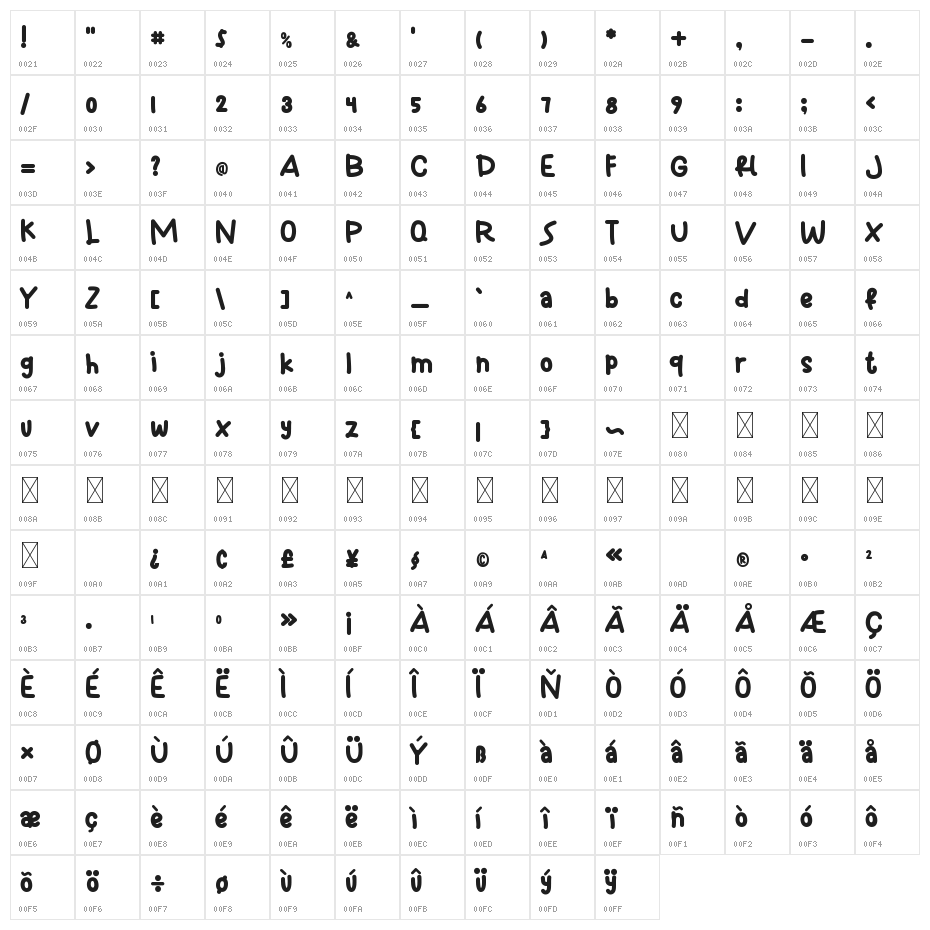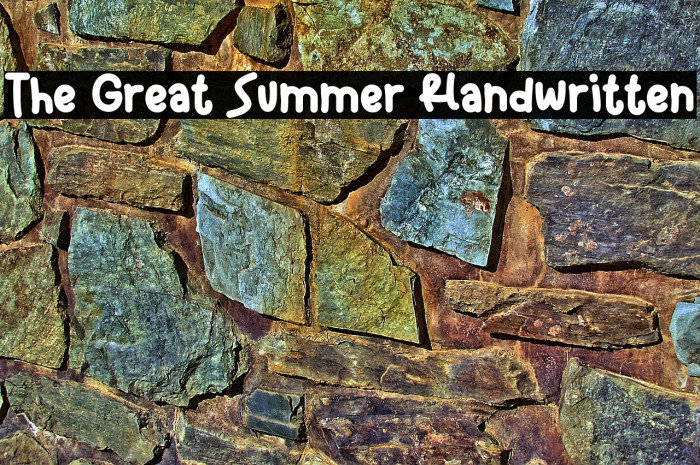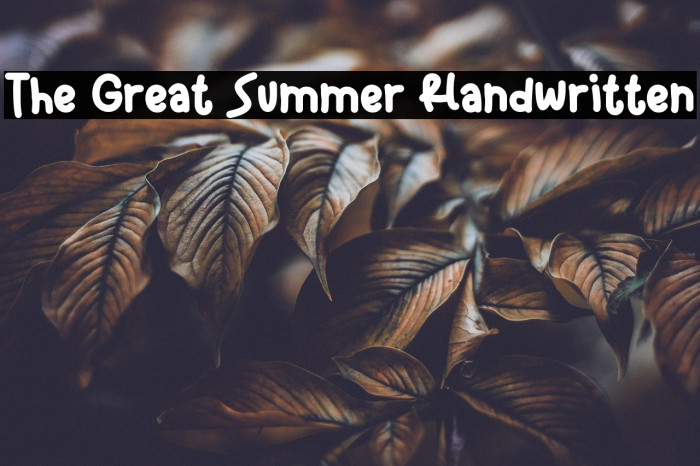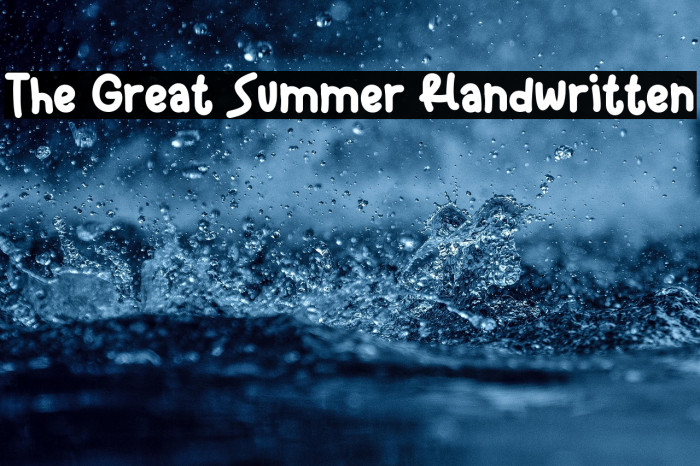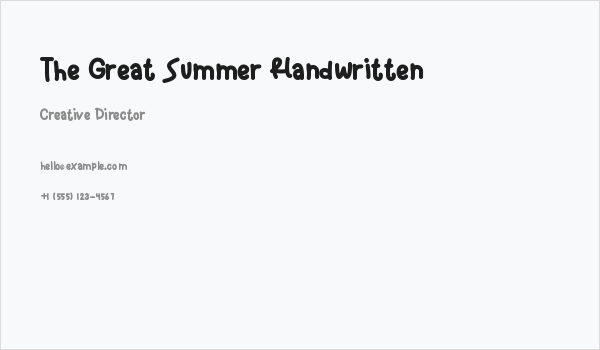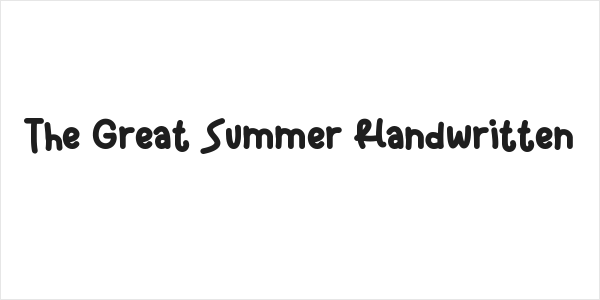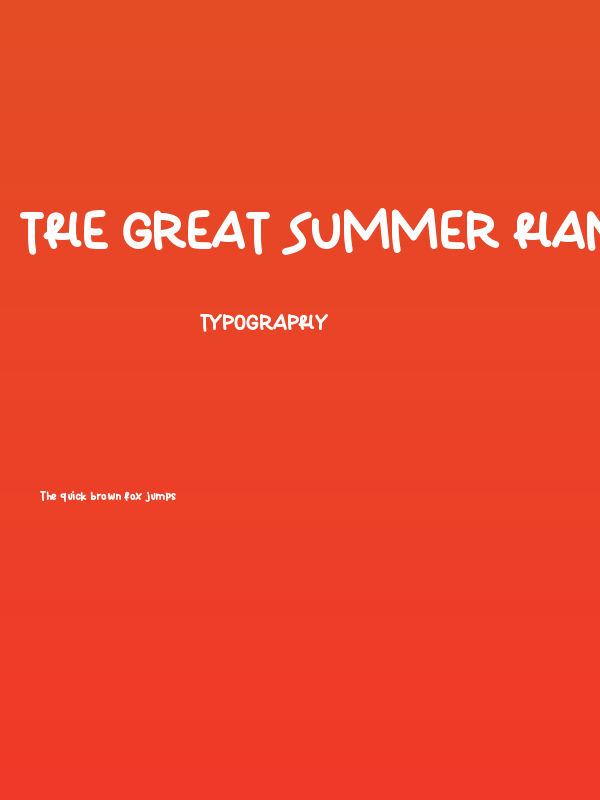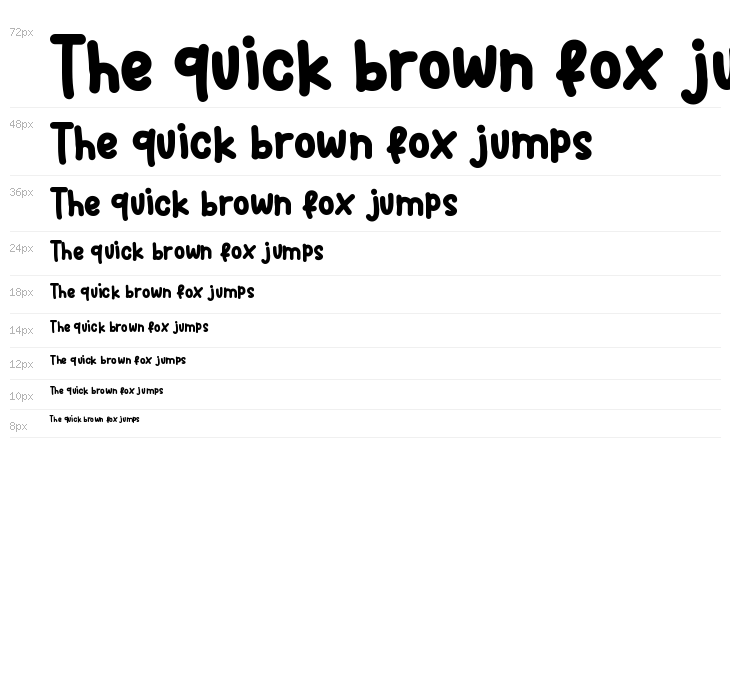
The Great Summer Handwritten Font
The Great Summer Handwritten Description
A playful, bold handwritten font with rounded edges and a casual style.
| Overall Style | Casual, Fun |
| Use Case | Headlines, Informal text, Logos |
| Proposed Projects | Greeting cards, children's books, casual branding. |